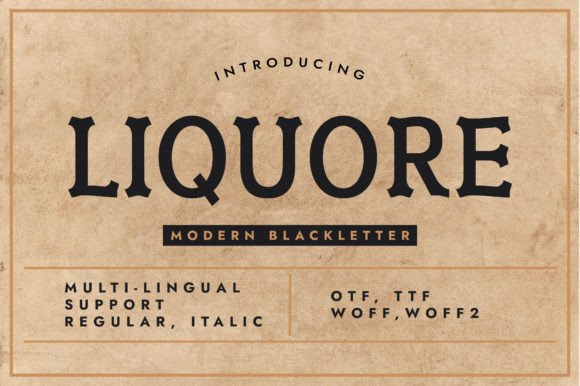
Unleash the captivating allure of Liquore, a blackletter font that exudes a raw, vintage charm. Its bold strokes and intricate details evoke a sense of timeless elegance, making it the perfect choice for creating designs that speak to the heart and leave a lasting impression. Whether you're designing alcohol packaging, film posters, horror designs, barber shop graphics, Halloween-themed creations, or any project that demands a touch of the extraordinary, Liquore will elevate your work to new heights.
Liquore's versatility knows no bounds. Its strong, extreme, and vintage character makes it a perfect fit for a wide range of design projects. Its readability as a display font ensures that your messages will be conveyed with clarity and impact. Dive into the world of Liquore and let its unique charm captivate your audience, leaving them spellbound and eager for more.
With Liquore, you'll have the power to transform ordinary designs into extraordinary works of art. Its striking presence will add a touch of sophistication and intrigue to your projects, making them stand out from the crowd. It's the perfect font for those who want to make a statement, to leave an indelible mark on the minds of their audience. Unleash your creativity and let Liquore ignite your imagination.
But Liquore is more than just a font; it's an experience. It will transport you back in time, to an era of elegance and mystery. Its intricate, detailed serifs will draw you in and captivate your senses, creating a connection between you and your audience that is both profound and unforgettable. Liquore is the key to unlocking your creative potential, the gateway to a world where design is not just a job, but a journey of self-expression and artistic fulfillment.
So why settle for ordinary fonts when you can have Liquore? Embark on a creative adventure with this remarkable blackletter font and let it guide you to new heights of design excellence. Liquore is not just a font; it's an investment in your creativity, a catalyst for your imagination. Discover the power of Liquore today and let your designs come alive with a timeless allure that will leave your audience spellbound.